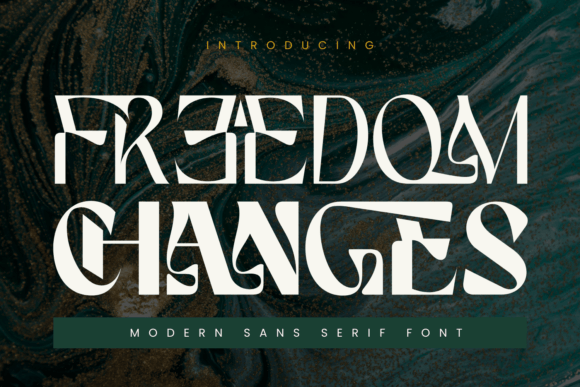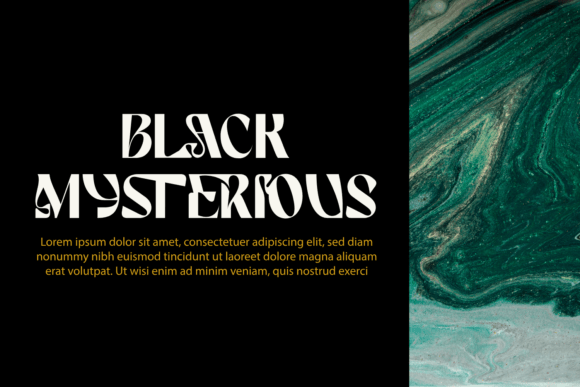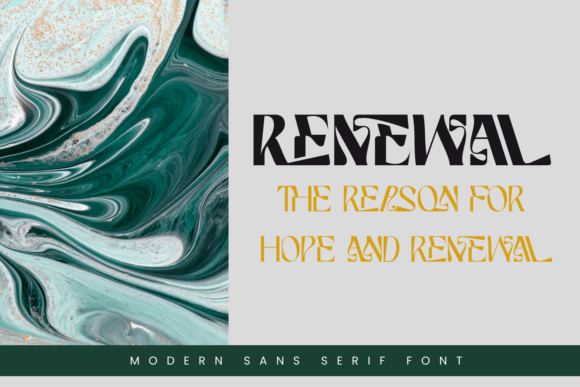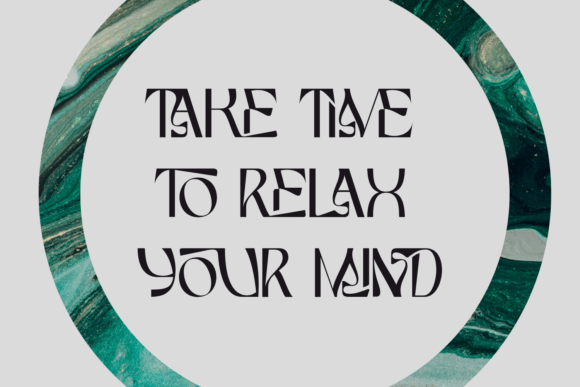
Freedom Changes Font: Elegant Sans Serif for Luxury Branding
About the Freedom Changes Font
Meet Freedom Changes Font, a stunning font that brings a touch of elegance and professionalism to any design. Freedom Changes Font – Elegant Luxury Sans Serif – Beauty Feminine Display Font. It’s an Elegant Beauty Luxury Sans Serif Font that embodies modern femininity and sophistication. Its sleek design offers a touch of luxury and elegance, making it perfect for projects that require a graceful and high-end aesthetic. Perfect for the purposes of designing templates, brochures, videos, advertising branding, logos, invitation, layout design, elegant crafting, beauty design and other.
Freedom Changes was built with OpenType features and includes 100 ligatures, alternate, numbers, punctuation, and it also supports other languages.
Freedom Changes Font Usage Examples
Freedom Changes Font Example